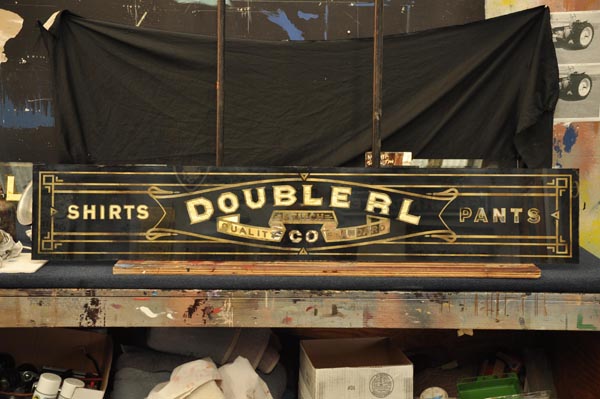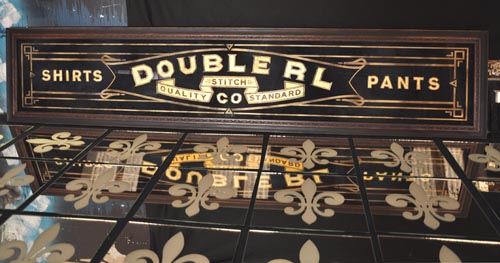
Heres the first one of the new year so far.
Rod,
Are there any names or dates to this sign? How thick is the glass?
Hope it's a fun job.
Are there any names or dates to this sign? How thick is the glass?
Hope it's a fun job.
It appears to be thicker than 1/4"
no, wait
What did i order,oh ya it was 1/4"
Glad you guy's thought it might be an original antique.That's the look I'm going for. The client wanted it to look 100 years old.
no, wait
What did i order,oh ya it was 1/4"
Glad you guy's thought it might be an original antique.That's the look I'm going for. The client wanted it to look 100 years old.
Rod,
Well, ya got me. But to be fair, I couldn't smell the fresh paint from the photo of your "Antique glass Sign". lol
You did a good job on the design, looks like it could have been duplicated from a Shorpy photo. I like it.
Well, ya got me. But to be fair, I couldn't smell the fresh paint from the photo of your "Antique glass Sign". lol
You did a good job on the design, looks like it could have been duplicated from a Shorpy photo. I like it.
You did a spot on job of that one Rod, As Pat said looks antique. Hey Happy New Year to you guy's too.
Hi Dave,
I almost thought to give this one to you Dave. It's headed for London when it's finished.
I think they picked the right man for the job Rod. looks good mate .
Sweet lookin sign Rod! What does it cost to ship that puppy to the UK?
Here is is all framed up and surrounded by the next project I'm doing, 77 10" x 10" frost mirrors. Not nearly as much fun but it's work.